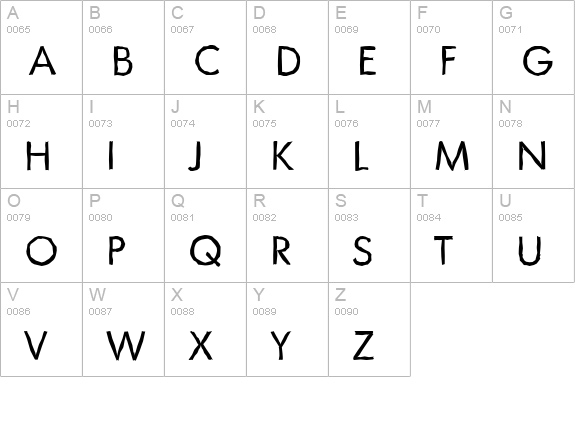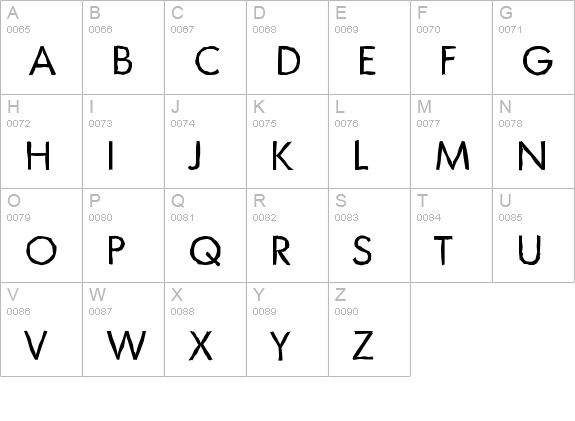
MontrealAntique-Regular Font Details
MontrealAntique-Regular is the standard, neutral variant in the MontrealAntique typeface family \xE2\x80\x94 well suited to general body text, paragraphs, and standard typographic work.
MontrealAntique-Regular font is a timeless and elegant typeface that exudes vintage charm and sophistication. Its intricate details and classic design make it perfect for adding a touch of nostalgia to your projects. Whether you're working on invitations, branding, or signage, this font is sure to make a statement. The best part? MontrealAntique-Regular is available for free download at FontsMarket.com. This means you can easily access this beautiful font and incorporate it into your designs without any cost. So why wait? Enhance your projects with the timeless elegance of MontrealAntique-Regular today!